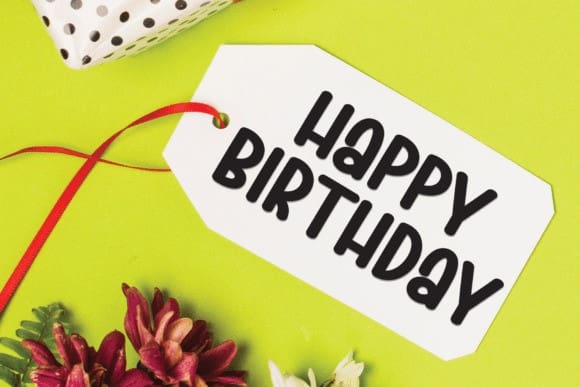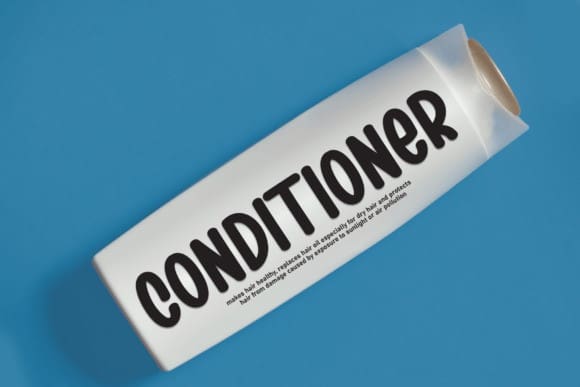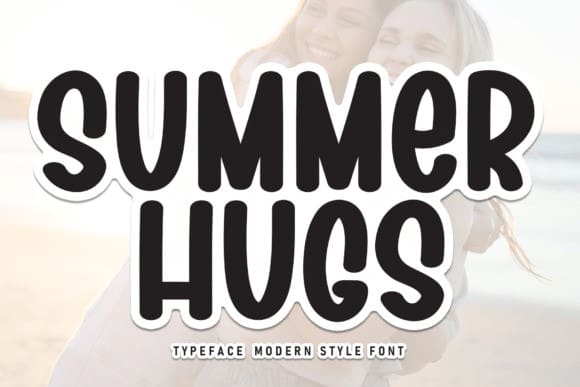
Summer Hugs Font
Summer Hugs Font is a sweet and friendly handwritten display font. Its natural and unique style makes it incredibly fitting to a large pool of designs. The only limit is your imagination!